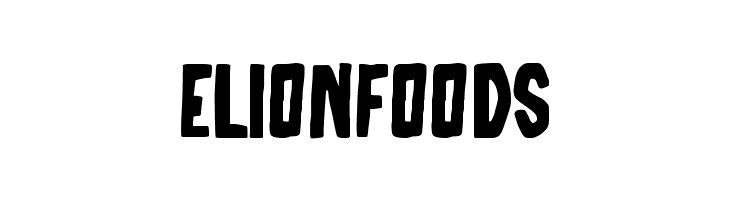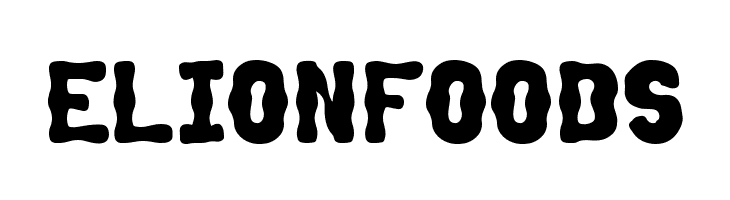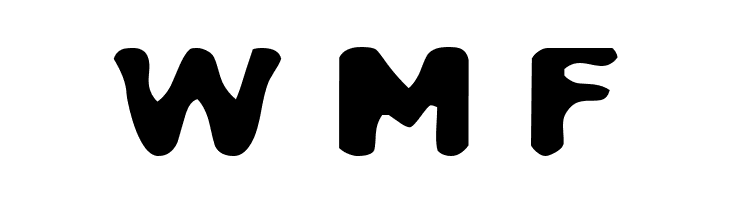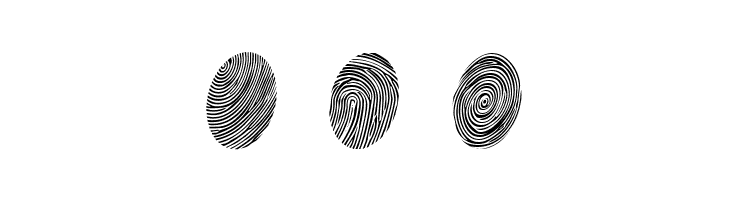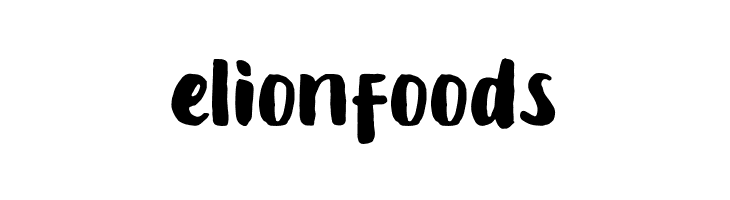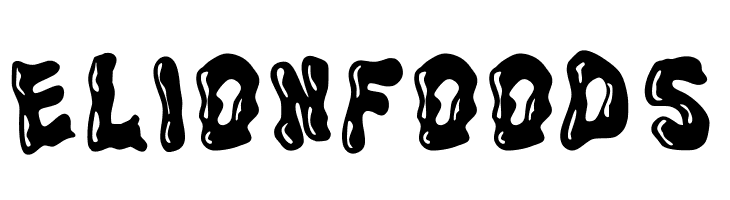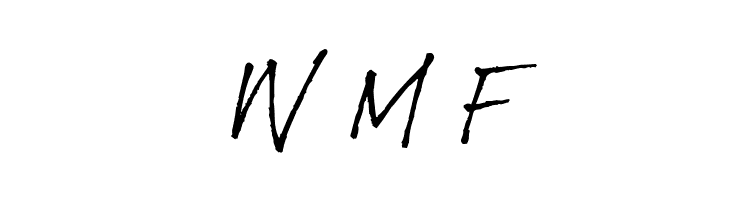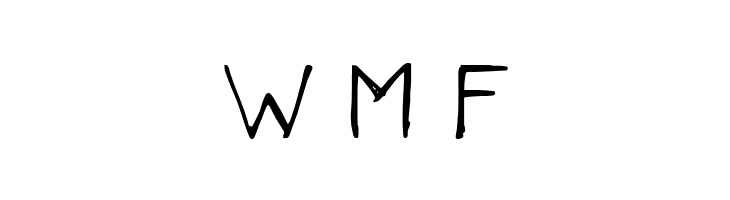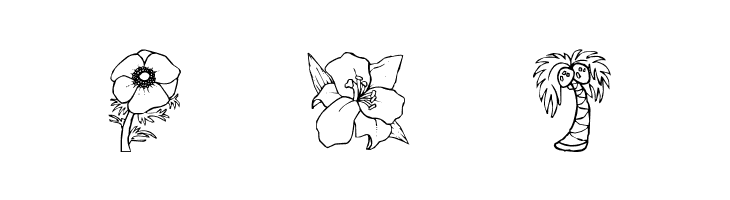
A decorative, textured font with mold-like, organic patterns.
A casual, handwritten font with an organic and personal touch.
A playful, handwritten font with a textured and organic appearance.
A handwritten style font with an organic and casual appearance.
An intricate, organic font resembling tangled vines or roots.
A bold, playful font with a hand-drawn, organic style.
A bold, playful font with rounded, organic shapes and a whimsical style.
A bold, wavy font with an organic, playful style.
A playful, hand-drawn font with a whimsical and organic style.
A bold, hand-drawn font with an organic, playful style.
A rustic, woodblock-inspired font with an organic and textured appearance.
A rugged, textured font with a hand-carved, organic feel.
A casual, handwritten font with an organic and playful style.
A textured, nature-inspired font with a rustic and organic feel.
A graceful script font with fluid, connected letters and elegant style.
A bold, hand-drawn font with a playful and organic style.
A bold, playful font with rounded edges and a vintage feel.
A bold, playful font with organic, cartoonish shapes and thick strokes.
A rugged, organic font with a handcrafted, natural texture.
A bold, playful font with a hand-drawn, organic feel.
Hand-drawn botanical illustrations with a whimsical and organic feel.
A casual, handwritten font with fluid, slightly slanted letterforms and a cohesive, organic feel.
Handwritten script with playful, sketchy lines and organic flow.
A bold, jagged display font with a hand-crafted, organic look.
A bold, liquid-inspired decorative display font with wavy, organic shapes.
A playful, bold font with organic shapes and quirky details.
A bold, playful font with an irregular, organic style and blobby texture.
A bold, decorative font with an organic, splattered appearance.
An artistic, calligraphic font with flowing, organic shapes.